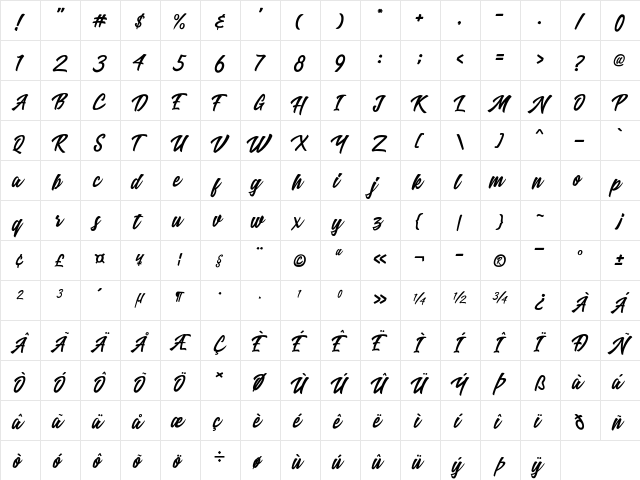
Ricefield Regular
| Designer | Rudhi Sasmito |
Design Context for Ricefield Typeface
Ricefield is a composed and adaptable typeface that performs quietly and consistently across a wide range of design contexts.